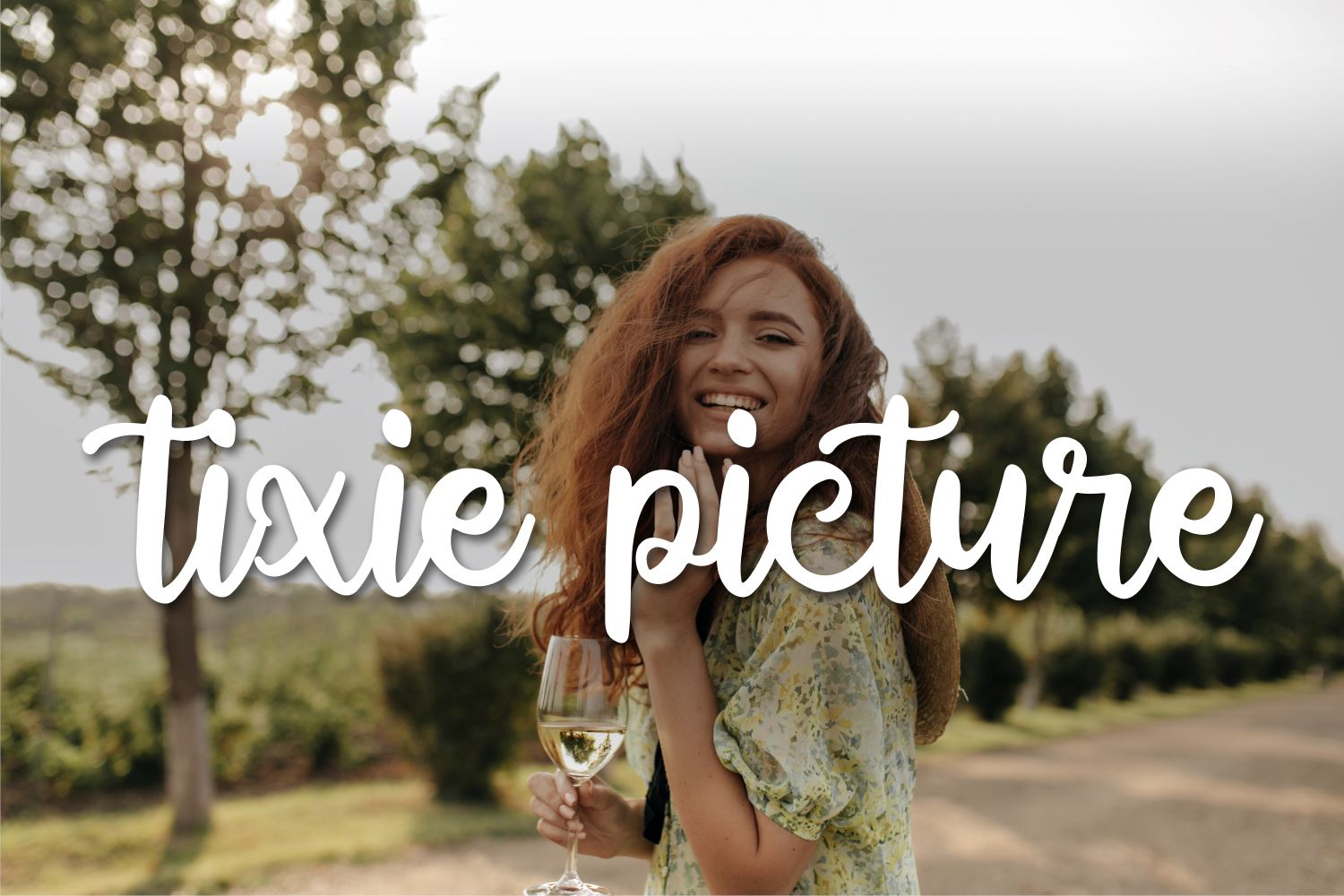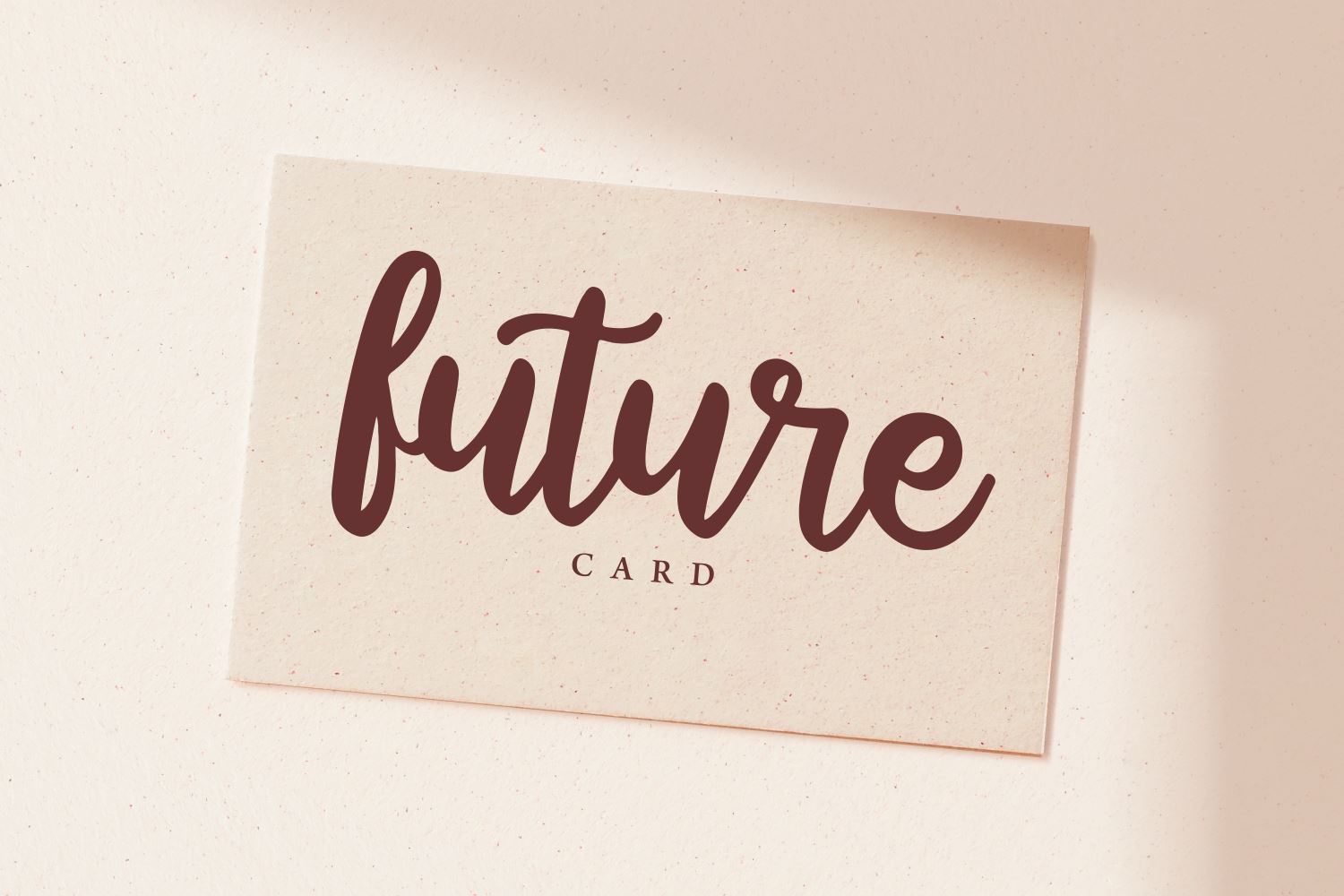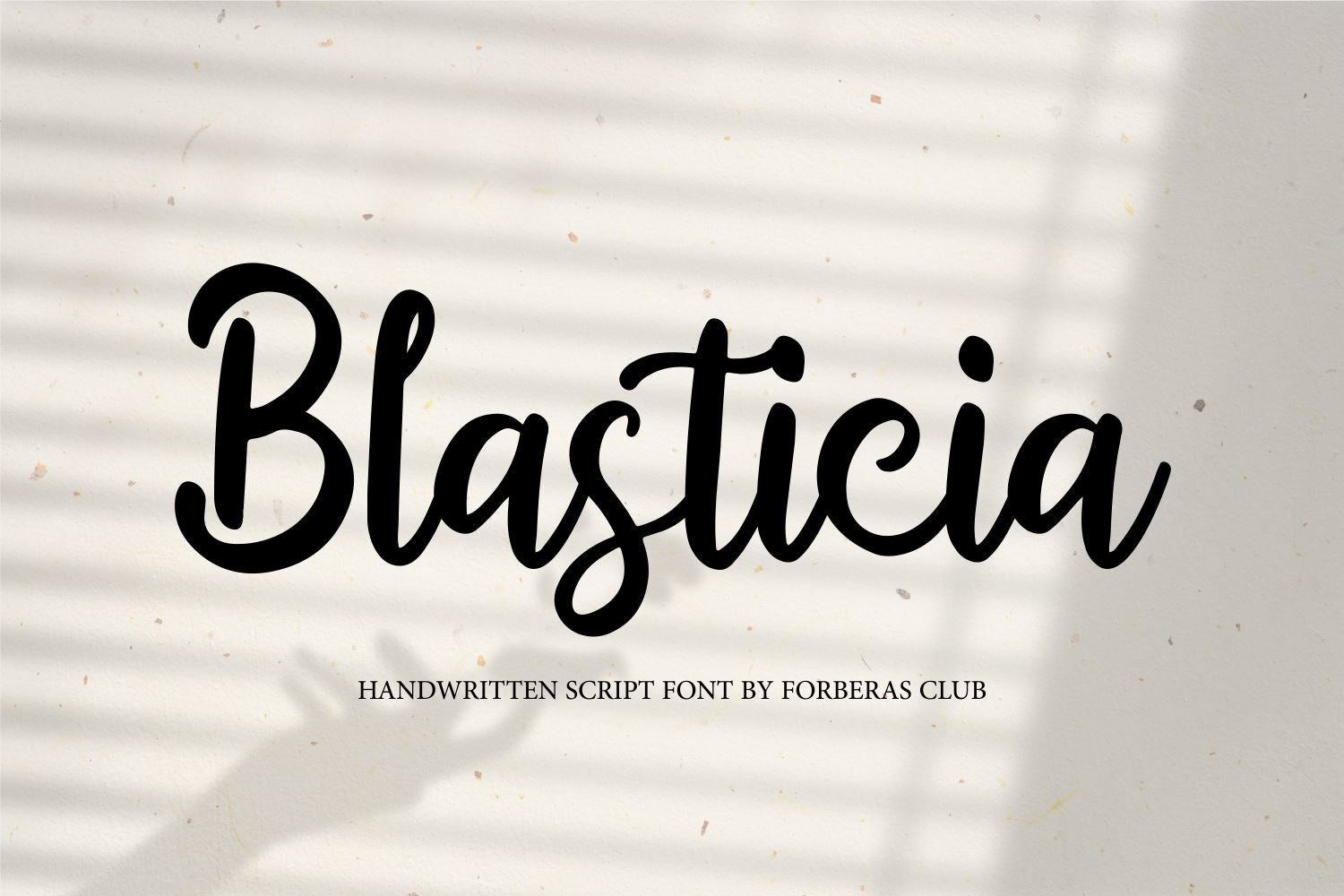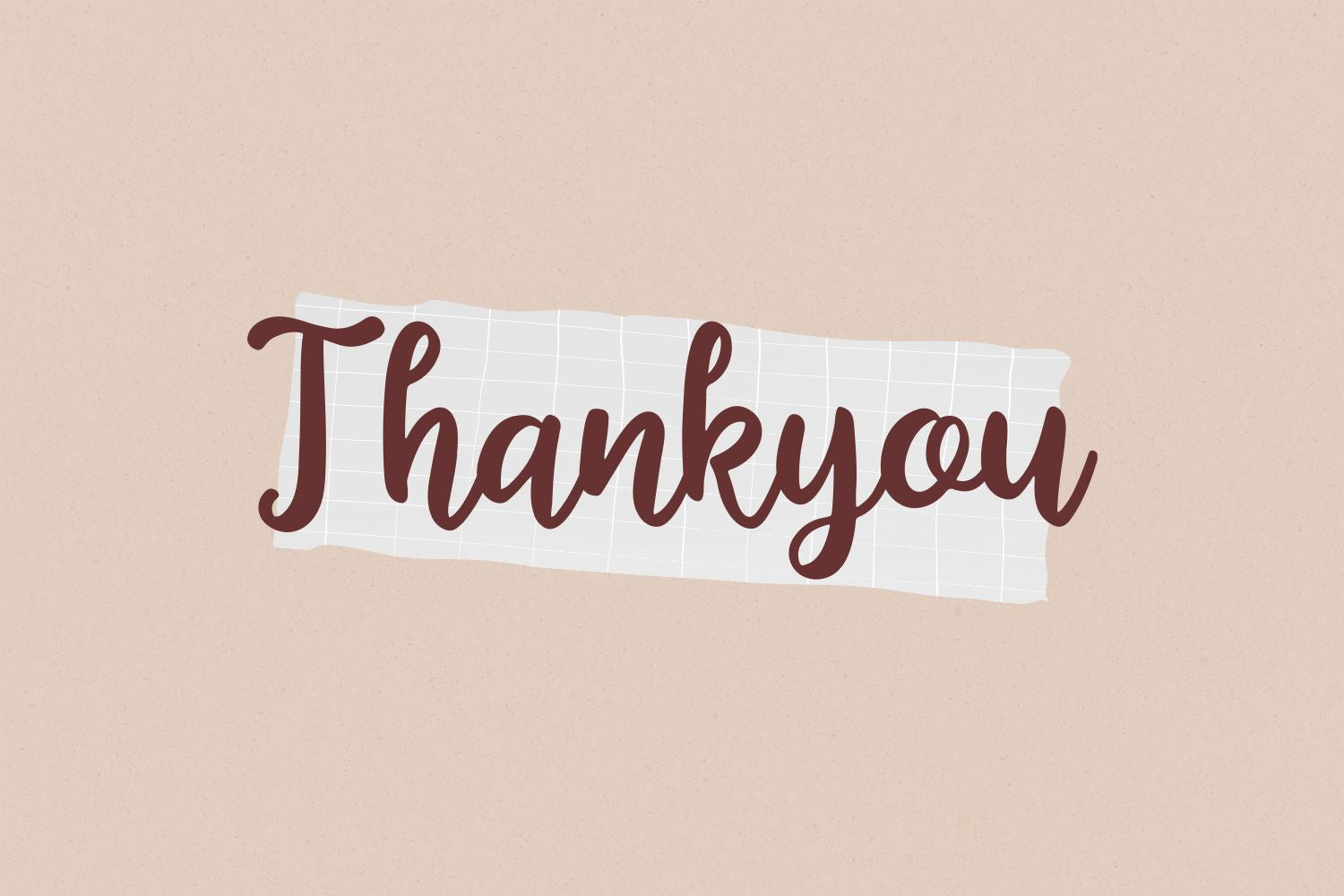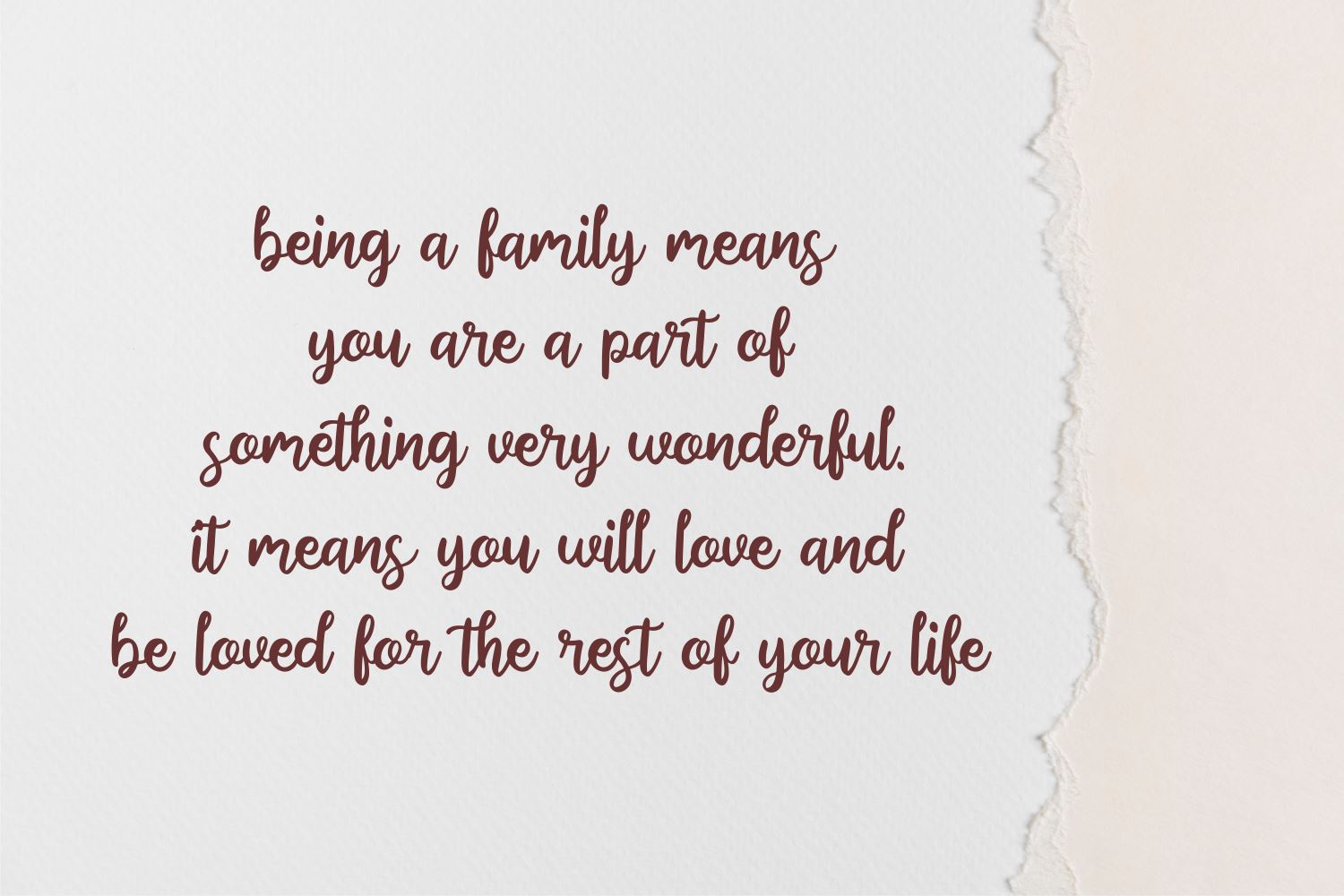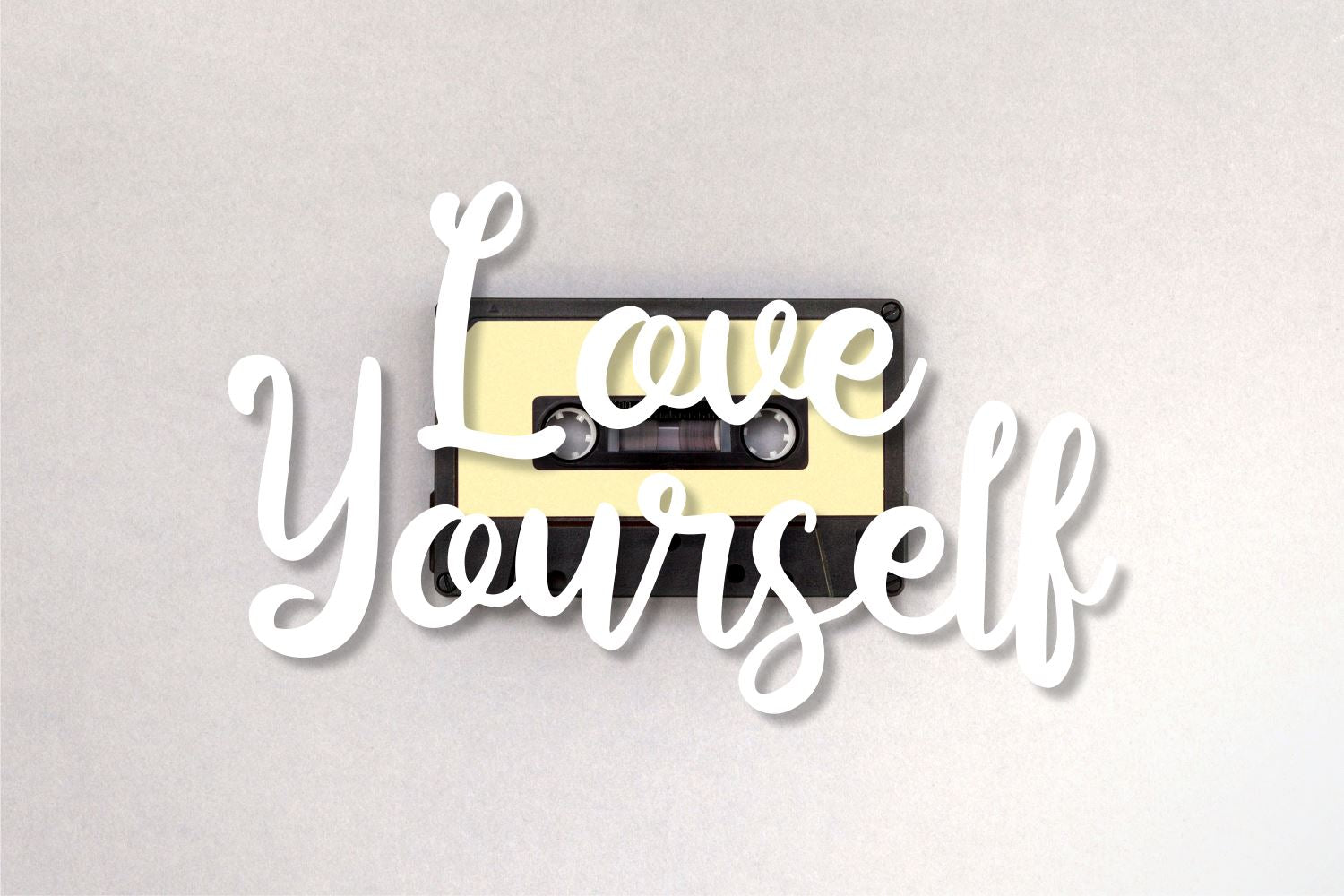
Blasticia
About Blasticia
Introducing Blastica Font by Forberas Club Blasticia is a Modern Handwritten Font. Blasticia is perfect for book cover, product packaging, branding project, megazine, social media, kisd book fonts, or just used to express words above the background. This font includes TTF and OTF, This font also multilingual support.